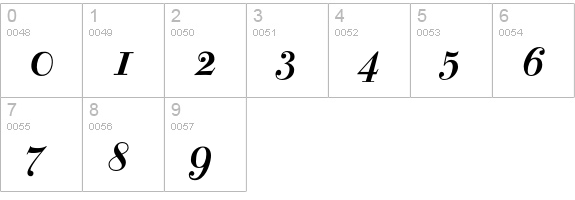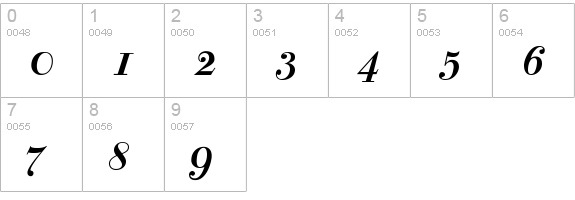
BodoniClassic-AdBoldItalic is a striking and elegant font that exudes sophistication and style. With its bold and italic design, this typeface commands attention and adds a touch of flair to any project. The sharp serifs and sleek curves of BodoniClassic-AdBoldItalic create a timeless and classic look that is perfect for luxury branding, editorial design, and high-end projects. And the best part? BodoniClassic-AdBoldItalic is available for free download at FontsMarket.com! This means you can easily access this exquisite font and elevate your designs without breaking the bank. Whether you're working on a fashion magazine layout, a high-end brochure, or a luxury brand identity, BodoniClassic-AdBoldItalic is the perfect choice to make a bold statement. Download now and add a touch of elegance to your projects!